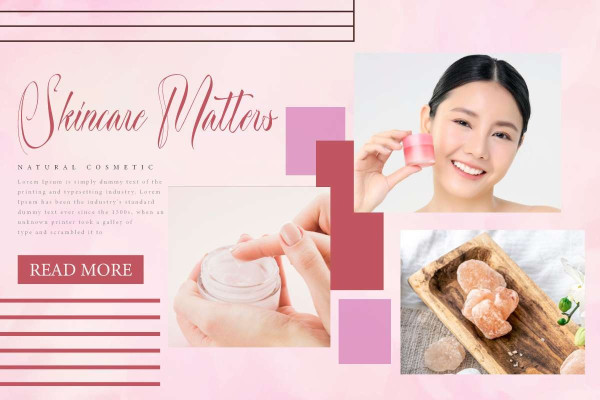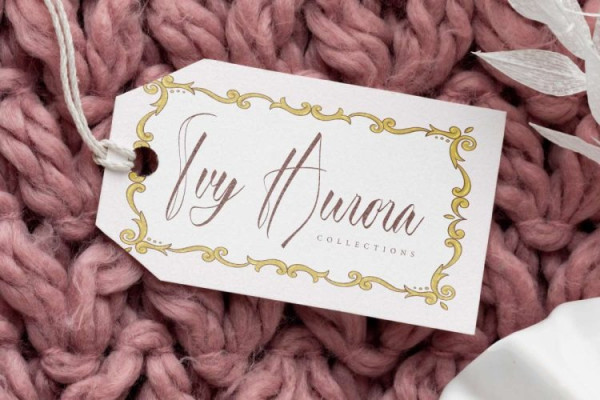
Beauty Princess Font
Beauty Princess Font is a beautiful script font with a stylish and royal touch. This typography is so carefully crafted that it creates an almost flawless typeface. The radiant princess aura makes this font suitable for any industry, such as accessories, beauty clinic, boutique, cosmetic, event organizer, fashion, florist, furniture, homeware, interior designers, jewelry, perfume brand, printing, publishing, restaurant, skincare, spa salon, and many more.
Beauty Princess Font comes with a full set of Uppercase and Lowercase Basic Characters, Number, a large range of Punctuation and Symbol. It has a stunning characters set, perfectly managed with well spaced and kerning. Beauty Princess Font will be great for any projects (with extended license) including: birthday card, brand logo, brochure, cover, invitation, label, menu, product packaging, quote, signage, screen print, stationery, sticker, title, watermark, website, etc.
Beauty Princess Font also has Alternate and Ligature characters options that you can choose and use to make it perfectly and stand out. To access the alternate glyphs, you need a program that supports OpenType features such as Adobe Illustrator CS and Adobe InDesign. Ready to use both on Windows machine or Mac with simple installations with multilingual characters supported. It’s tested to work well in the Adobe Apps (Illustrator, Adobe InDesign, Adobe Photoshop) even work on Microsoft Word. PUA Encode Characters means you can access all characters easily – Fully accessible without additional design software.